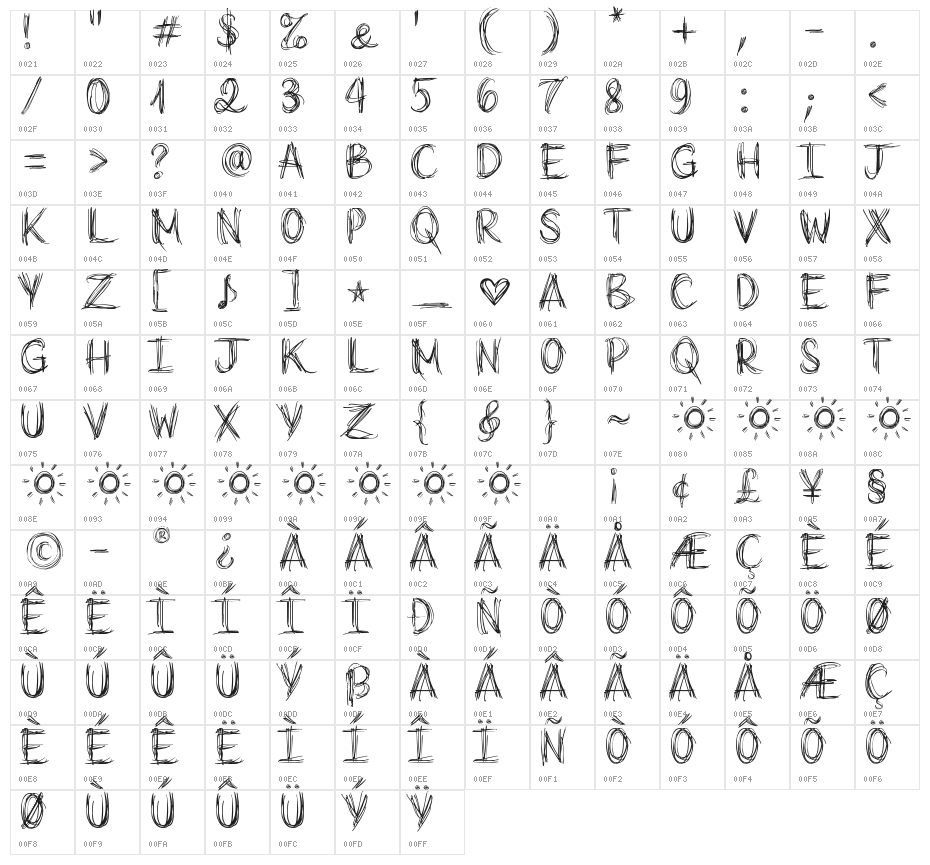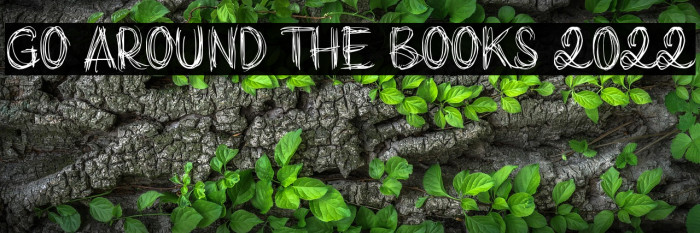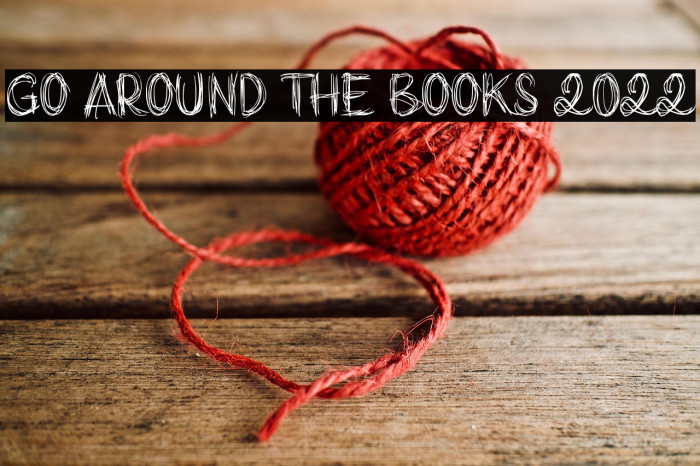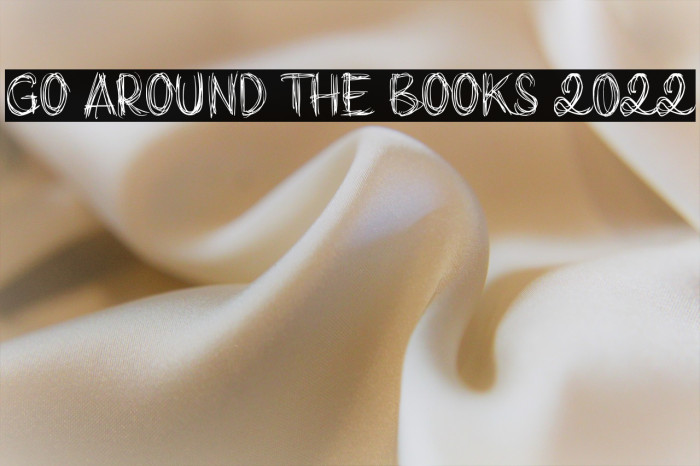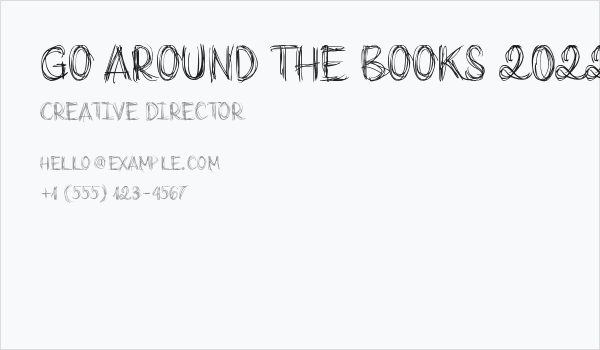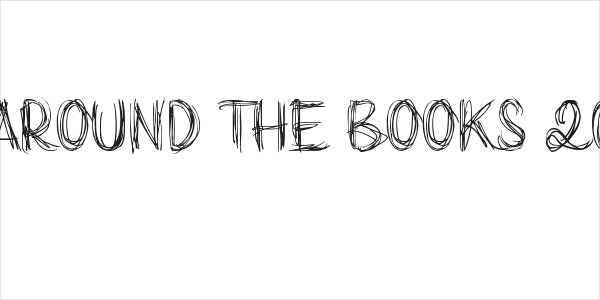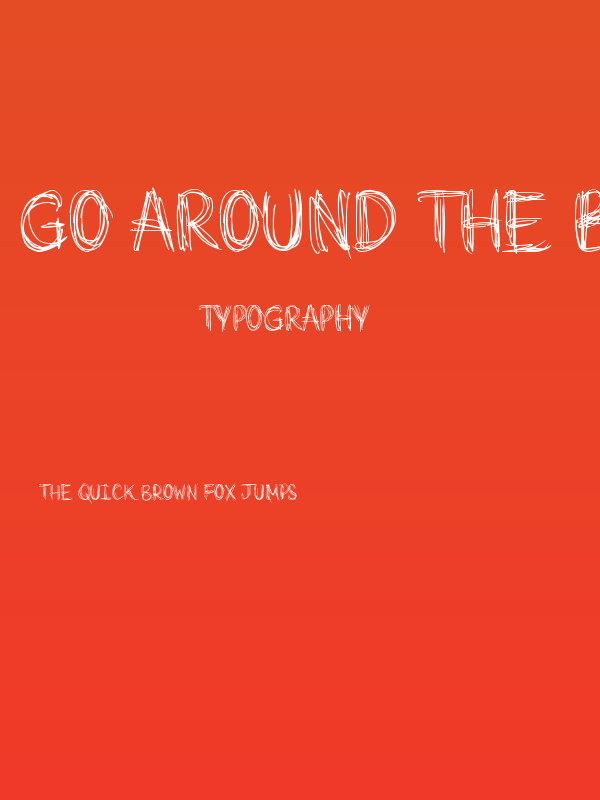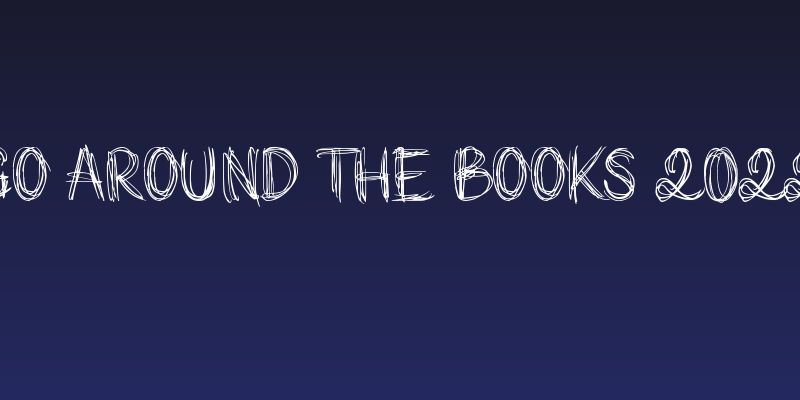
Go around the books 2022 Font
Go around the books 2022 Description
This font features a dynamic and energetic style, characterized by its sketch-like, hand-drawn appearance. Each character is composed of multiple overlapping strokes, giving it a textured and artistic feel. The letters are bold and expressive, with a slightly irregular form that adds to its handcrafted look. The font maintains a consistent height across both uppercase and lowercase letters, while numbers and special characters follow the same artistic theme. Its unique design makes it stand out, perfect for creative projects that require a personal touch.
| Proposed Projects | Ideal for art projects, posters, book covers, and creative branding that seeks a personal, handcrafted touch. |